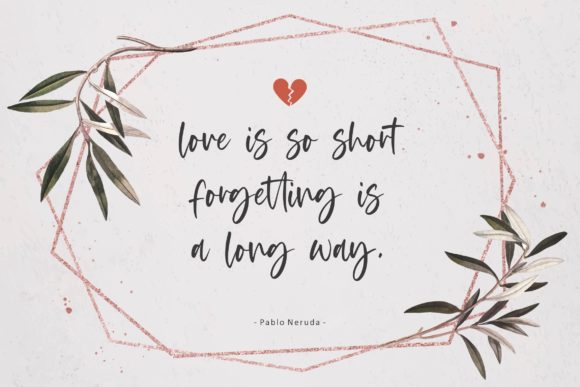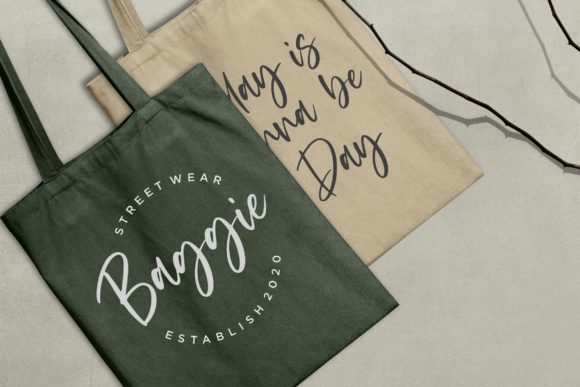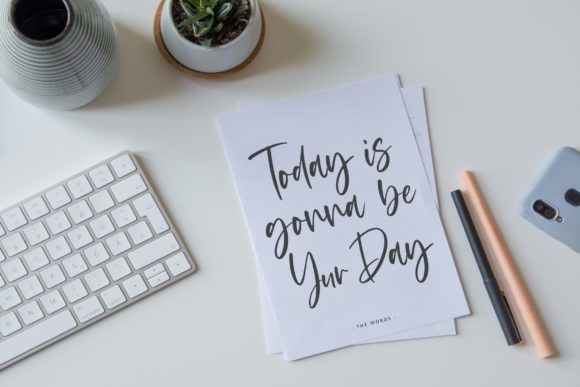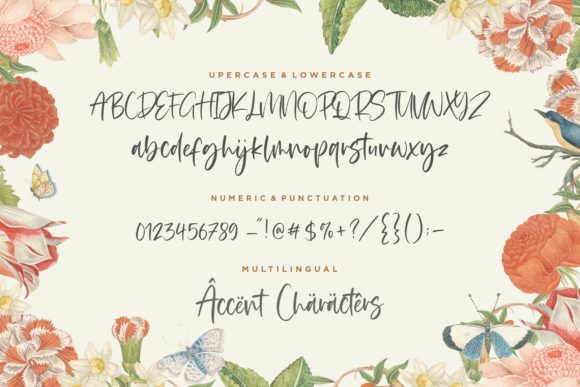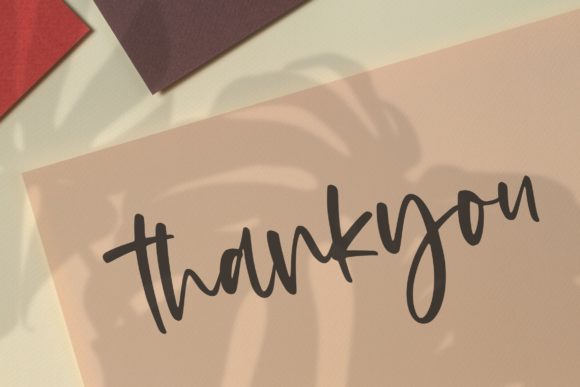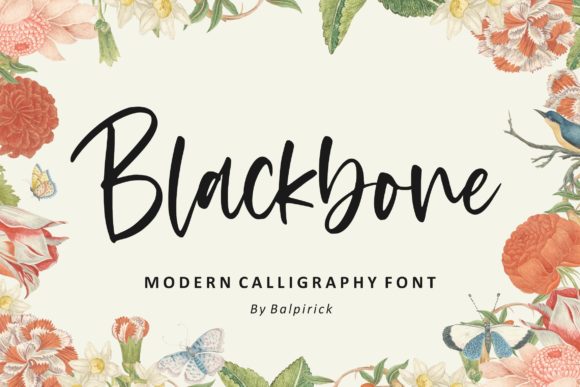
Introducing Blackbone Font: Elevate Your Designs with Elegance and Class
Are you tired of using the same old fonts in your designs? Do you want to add a touch of elegance and sophistication to your projects? Look no further than Blackbone Font, a lovely and delicate script font that exudes refinement and poise. In this article, we’ll explore the features and benefits of Blackbone Font, and how it can elevate your designs to the next level.
The Story Behind Blackbone Font
Blackbone Font was particularly crafted for designers and crafters who need a beautiful and refreshing look to their designs. The font’s creators aimed to create a typeface that would add a touch of luxury and sophistication to any project, whether it’s a branding campaign, a wedding invitation, or a DIY craft. With Blackbone Font, you can add a dash of elegance and whimsy to your designs, making them stand out from the crowd.
Key Features of Blackbone Font
So, what makes Blackbone Font so special? Here are some of its key features:
- Delicate and Lovely: Blackbone Font features delicate lines and curves that give it a charming and lovely appearance.
- Elegant and Classy: The font’s elegant and classy design makes it perfect for high-end branding, luxury packaging, and sophisticated designs.
- Script Style: Blackbone Font is a script font, which means it’s perfect for adding a personal touch to your designs.
- Versatile: The font is versatile and can be used for a wide range of projects, from digital designs to print materials.
Benefits of Using Blackbone Font
So, why should you use Blackbone Font in your designs? Here are some benefits:
- Adds Elegance: Blackbone Font adds a touch of elegance and sophistication to any design, making it perfect for high-end branding and luxury packaging.
- Unique and Refreshing: The font’s unique and refreshing design makes it stand out from more traditional fonts, adding a dash of whimsy to your designs.
- Easy to Read: Despite its delicate design, Blackbone Font is easy to read, making it perfect for body text and headlines.
- Customizable: The font is customizable, allowing you to adjust the size, color, and style to fit your design needs.
Uses of Blackbone Font
So, what can you use Blackbone Font for? The possibilities are endless:
- Branding: Use Blackbone Font for logos, business cards, and letterheads to add a touch of elegance to your brand.
- Wedding Invitations: Add a touch of sophistication to your wedding invitations and save-the-date cards with Blackbone Font.
- DIY Crafts: Use Blackbone Font for DIY crafts, such as handmade cards, gift tags, and scrapbooking.
- Digital Designs: Use Blackbone Font for digital designs, such as social media graphics, blog headers, and email newsletters.
In conclusion, Blackbone Font is a beautiful and elegant script font that can elevate your designs to the next level. With its delicate lines, elegant design, and versatile uses, Blackbone Font is perfect for designers and crafters who need a refreshing and sophisticated look. Whether you’re working on a branding campaign, a wedding invitation, or a DIY craft, Blackbone Font is sure to add a touch of luxury and whimsy to your designs.